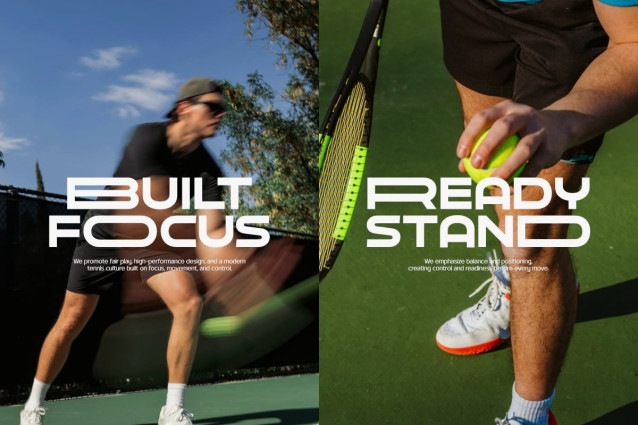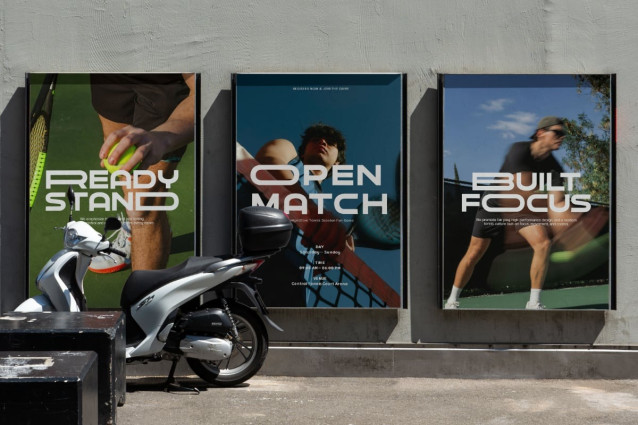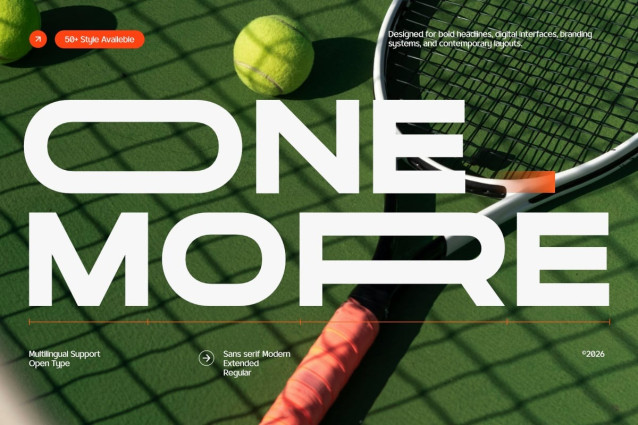
TBJ One More Font
TBJ One More Font is a modern sans-serif typeface designed for clarity, precision, and contemporary visual communication. Built with a clean geometric structure and soft proportions, One More offers a confident and versatile tone in both digital and print environments.
Designed with performance in mind, this typeface excels in bold headings, branding systems, editorial layouts, user interfaces, and animated graphics. Its large letters and balanced spacing ensure high readability while maintaining a modern, athletic, and future-oriented feel
One More offers a full set of uppercase and lowercase letters, numbers, and extensive Latin multilingual coverage, making it a reliable choice for global brands and modern design systems. Whether used in sports branding, technology products, lifestyle campaigns, or corporate identities, One More adapts seamlessly while maintaining a strong visual presence.